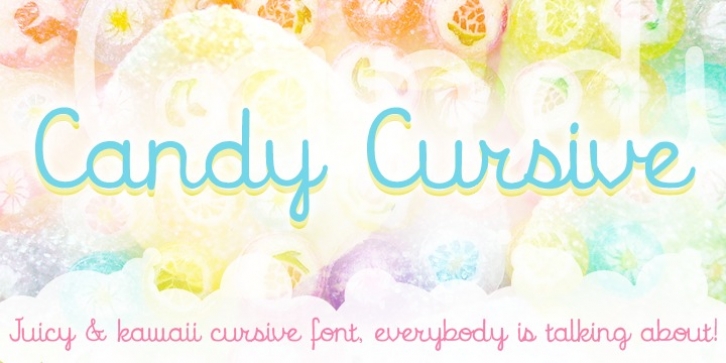
Candy Cursive is a sweet & lovely connected script. Use this flowing cursive wherever eloquence or delicacy is required. Candy Cursive is extended, containing West European diacritics & ligatures, making it suitable for multilingual environments & publications.